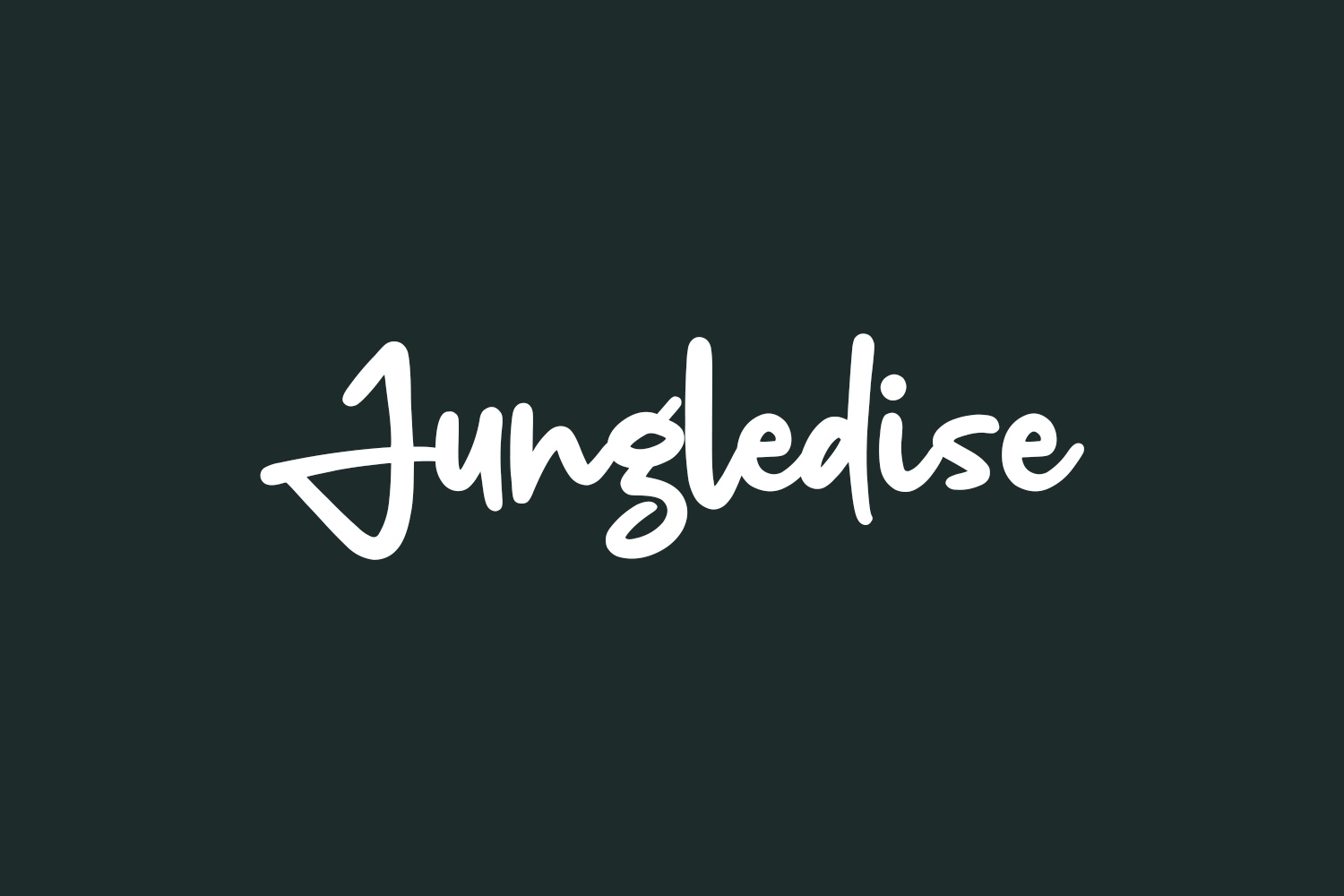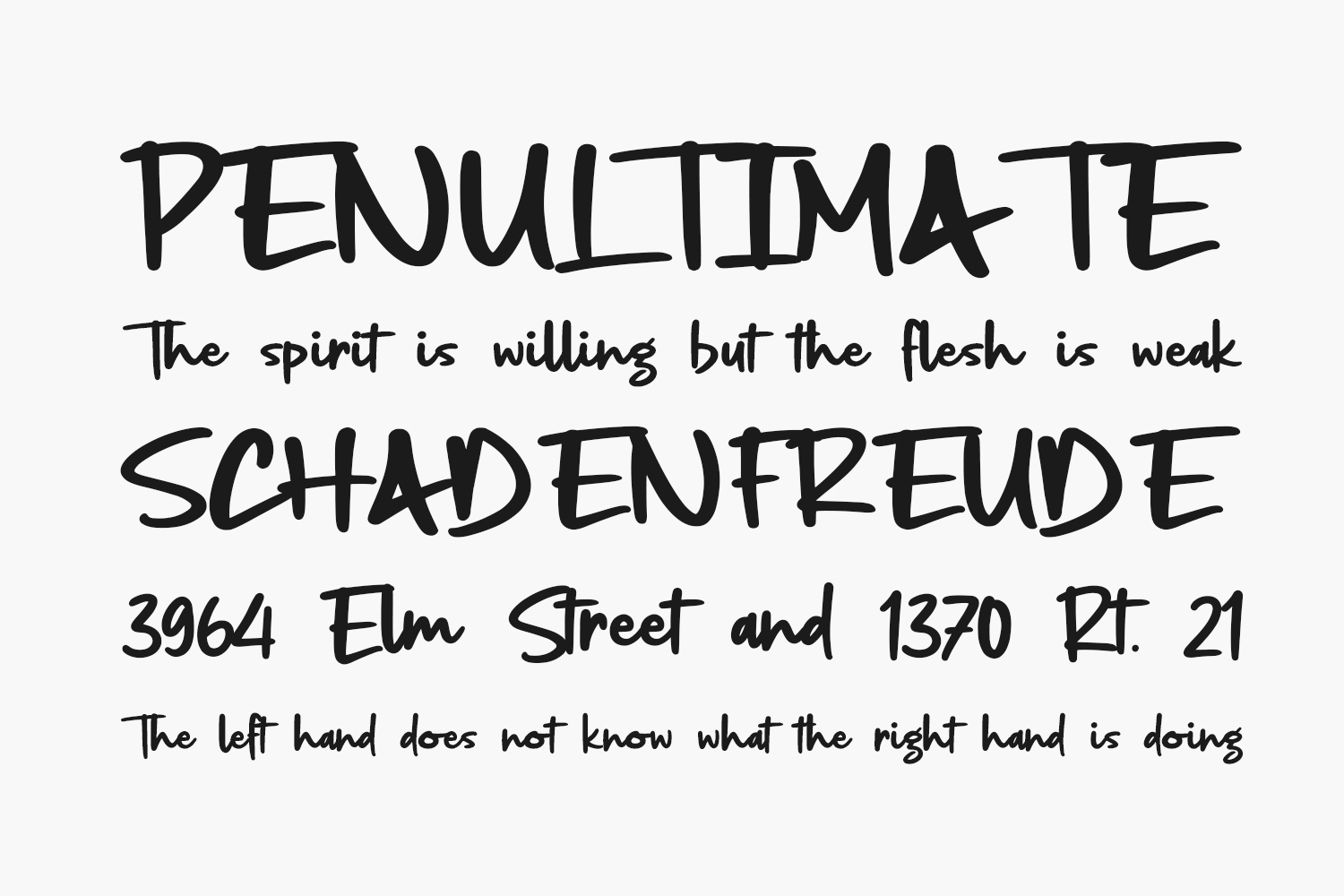
Jungledise Free Font is a relaxed and casual-looking handwritten font. Jungledise is perfect for product packaging, branding projects, magazine covers, social media development, or just used to express words above the background.